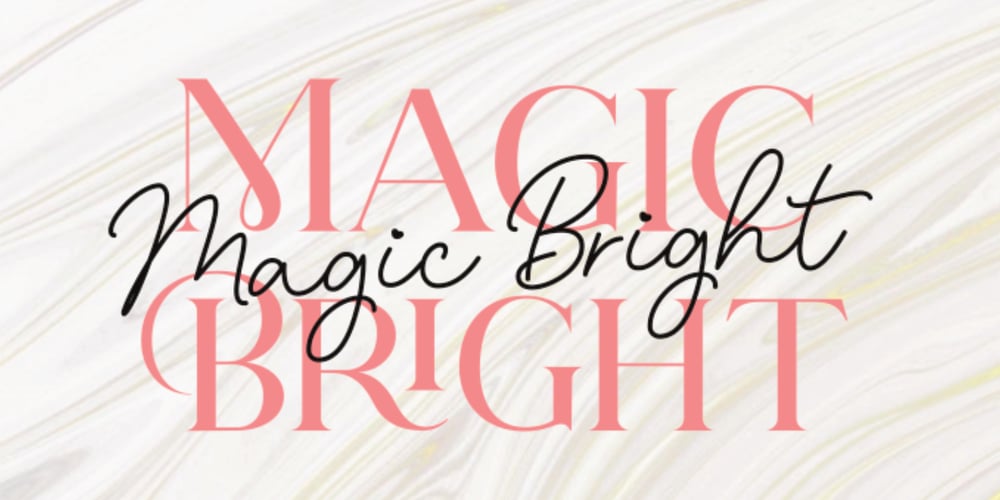
Magic Bright Script
Magic Bright Script font
Magic Bright Script Font Family was designed by Diki Hermawan and published by Typestory. Magic Bright Script contains 6 styles and family package options. Magic Bright is a stunning and comprehensive duo font (script and serif), ideal for giving your projects a branded but friendly feel. The two included styles can be combined together perfectly but are also beautiful on their own.